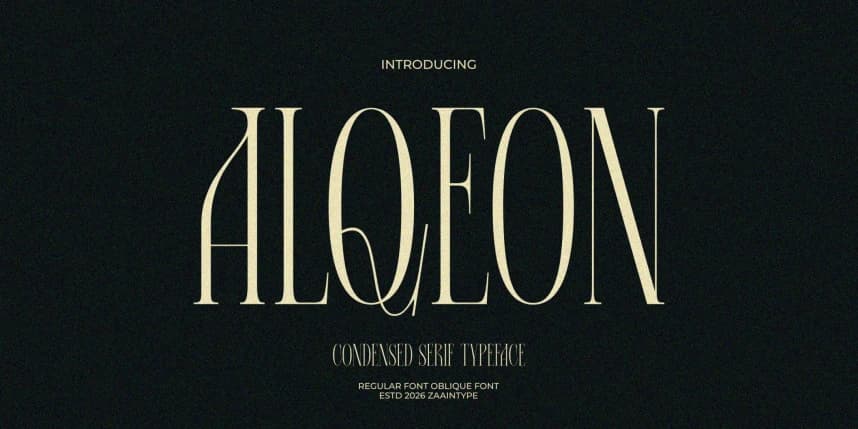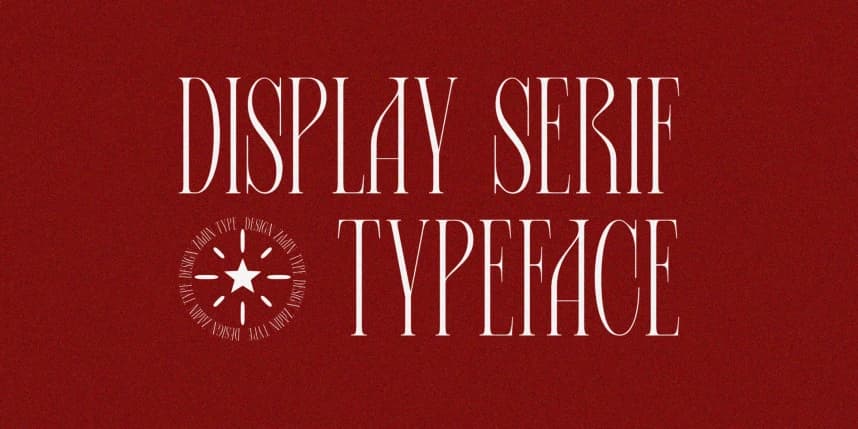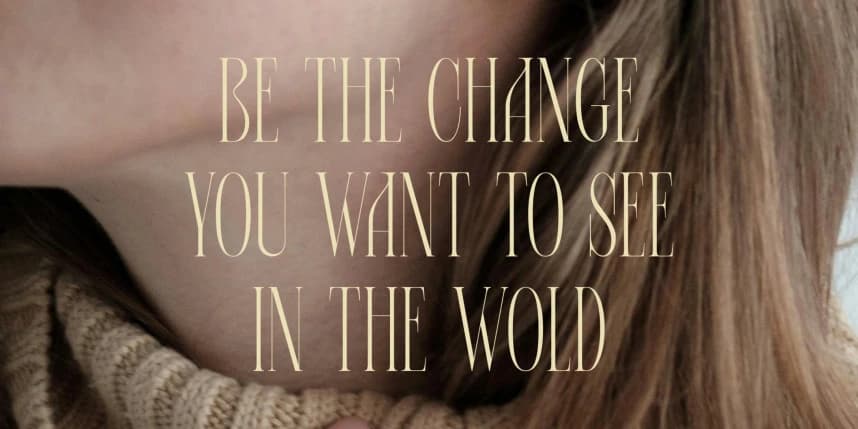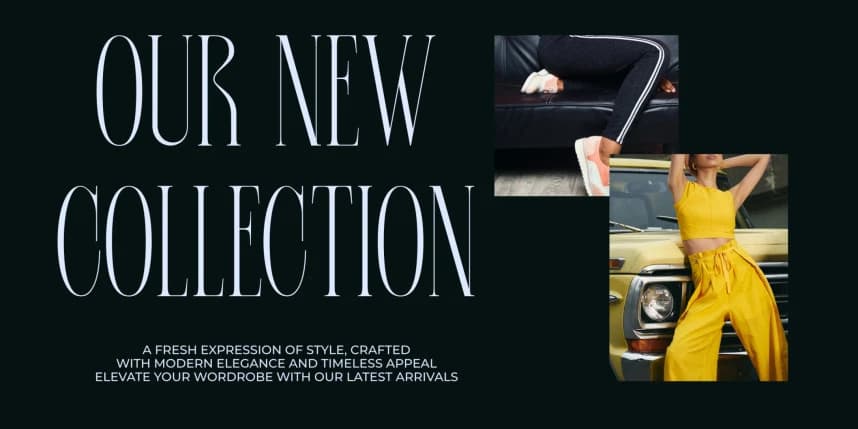
Alqeon Font
Alqeon Font is a font that radiates a modern character with a subtle touch of elegance. Designed with a balance between firmness and refined detail, it presents a clean yet sophisticated appearance. Each curve is crafted with precision